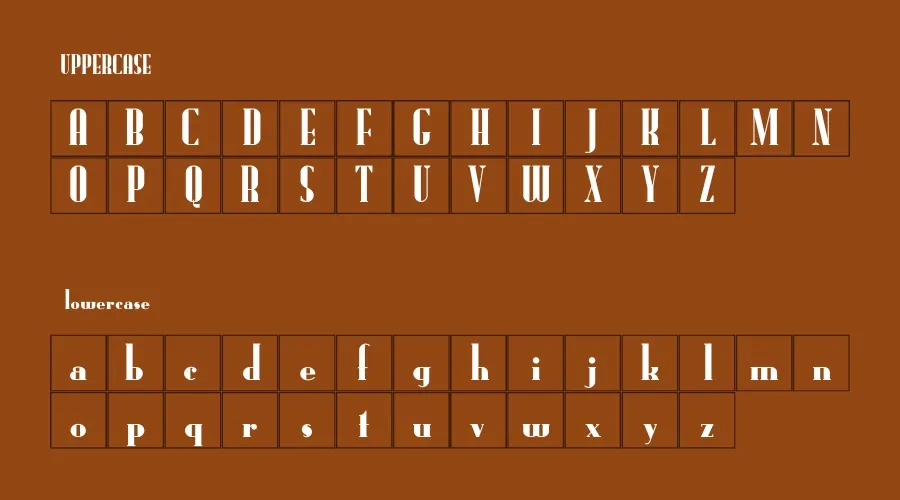
About Radio Ranch Font
Nicks Fonts designed this beautiful style called Radio Ranch Font. You can use this font for any project that needs a clean, stylish design. The typeface will look classy when paired with Utopia Font. Designing unique content using this font is easy. And it satisfies the need of the clients.